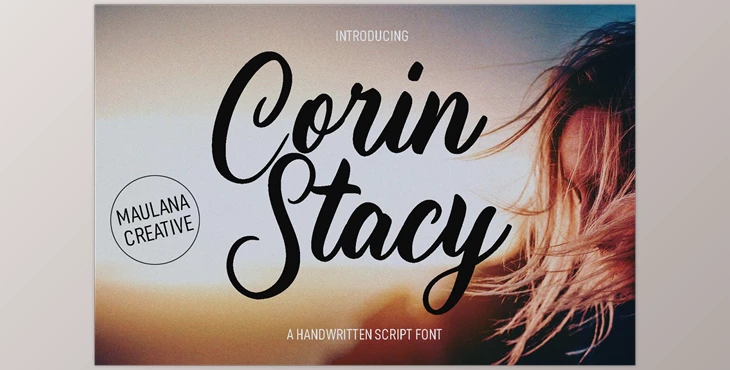
Corin Stacy – Script Font:
Corin Stacy is a fancy script typeface. It features bold, high-contrast strokes, and fun characters with the addition of ligatures as well as alternative characters. For those who want to add imaginative work. Corin Stacy font supports multilingual more than 100+ languages. The font is suitable for logos, social media as well as Movie Titles, or Books Titles, and a text that is short even a long text and is a great secondary text font with a serif or sans. Create amazing work using Corin Stacy Font.